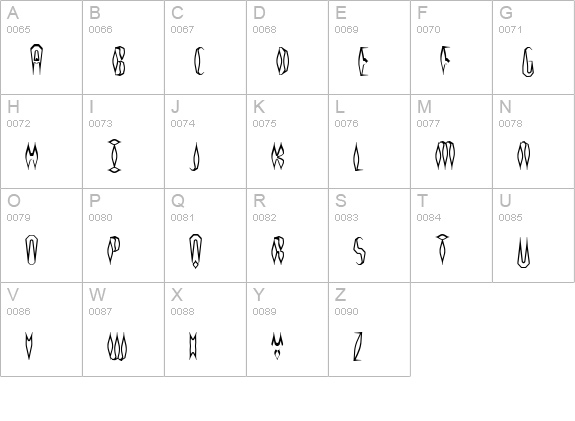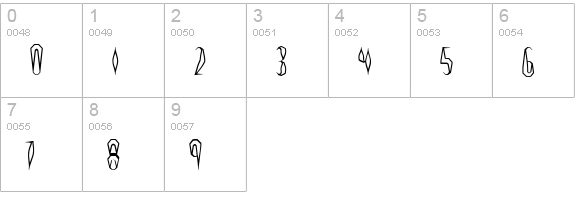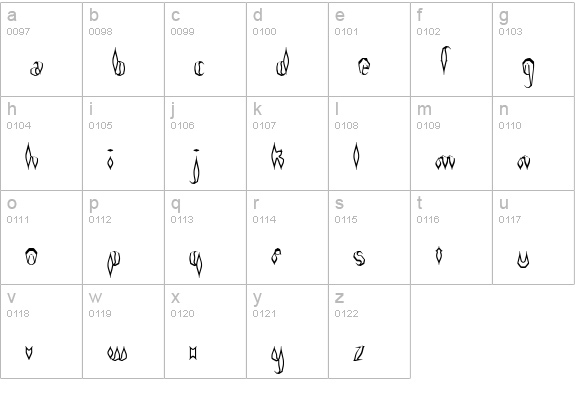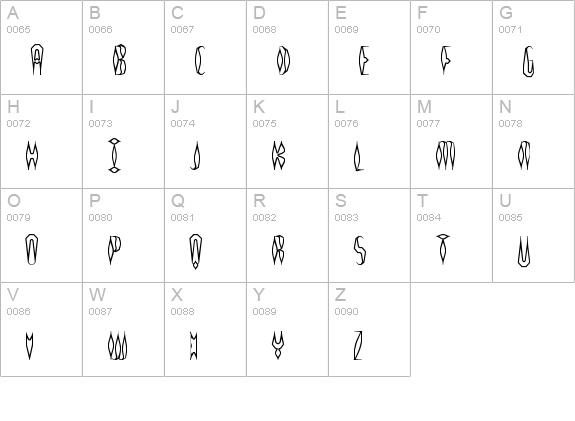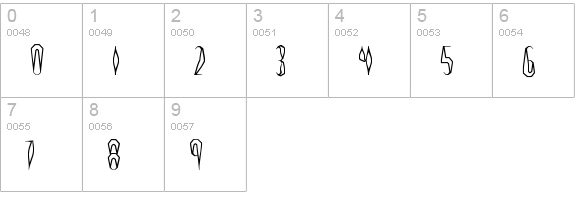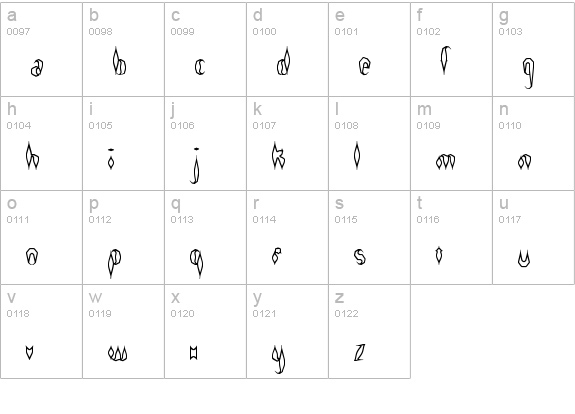
Quill Experimental O BRK Font Details
Quill Experimental O BRK font is a striking and innovative typeface that pushes the boundaries of traditional typography. With its avant-garde design and unique letterforms, this font captures attention and creates a truly artistic statement. The Quill Experimental O BRK font is perfect for designers and creatives who seek to break free from the constraints of conventionality and explore new possibilities in their projects. Its unconventional strokes and shapes add a touch of rebellion and unconventionality to any design, making it perfect for experimental and edgy designs. The free-flowing nature of the Quill Experimental O BRK font evokes a sense of fluidity and freedom, allowing your text to take on a dynamic and expressive quality. Each letter is meticulously crafted to maintain legibility while exuding a sense of individuality and creativity. This font is freely available for download at FontsMarket.com, making it accessible to anyone who wishes to add a touch of artistic flair to their creations. Whether you are designing a logo, poster, or website, the Quill Experimental O BRK font will undoubtedly make a lasting impression. Its bold and daring aesthetic is sure to captivate and inspire both you and your audience. Embrace the spirit of experimentation and download the Quill Experimental O BRK font today.